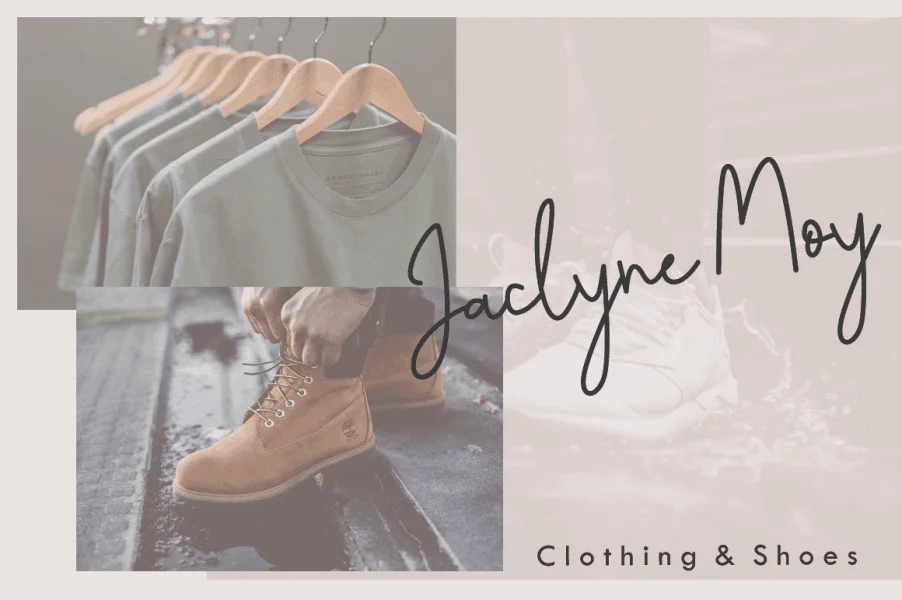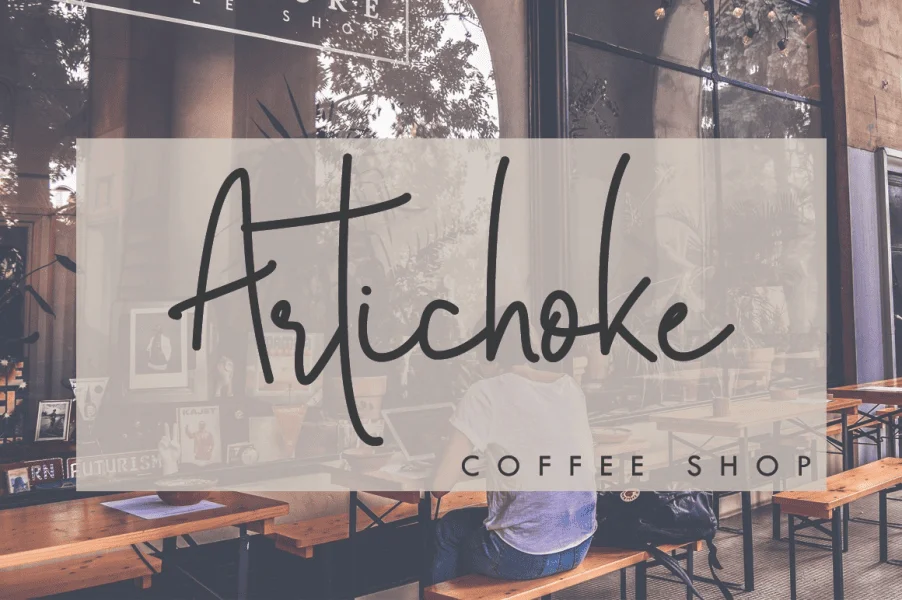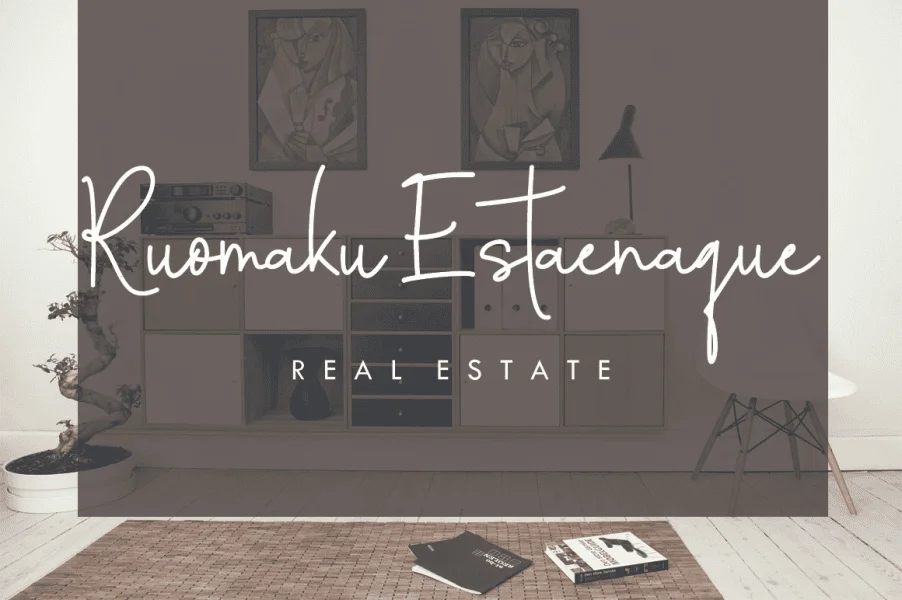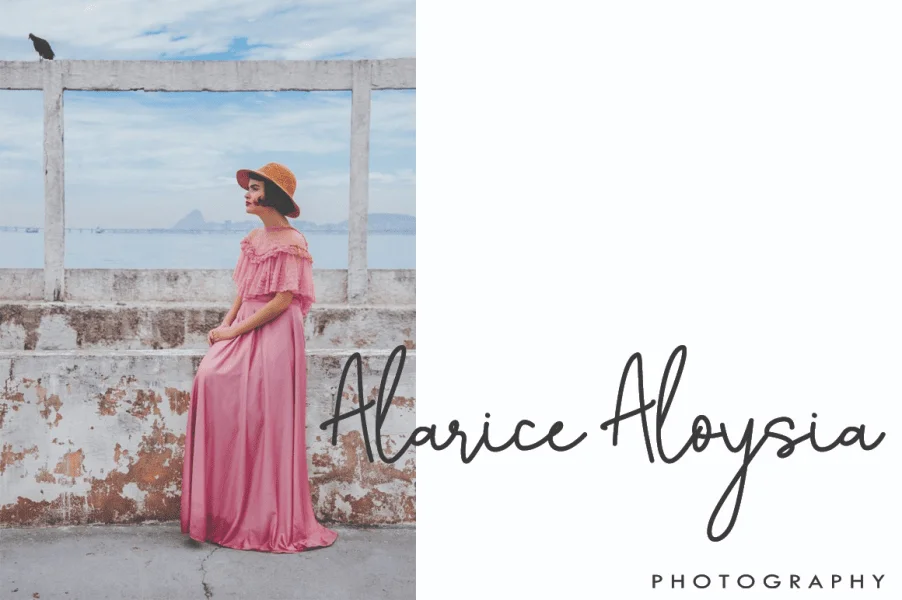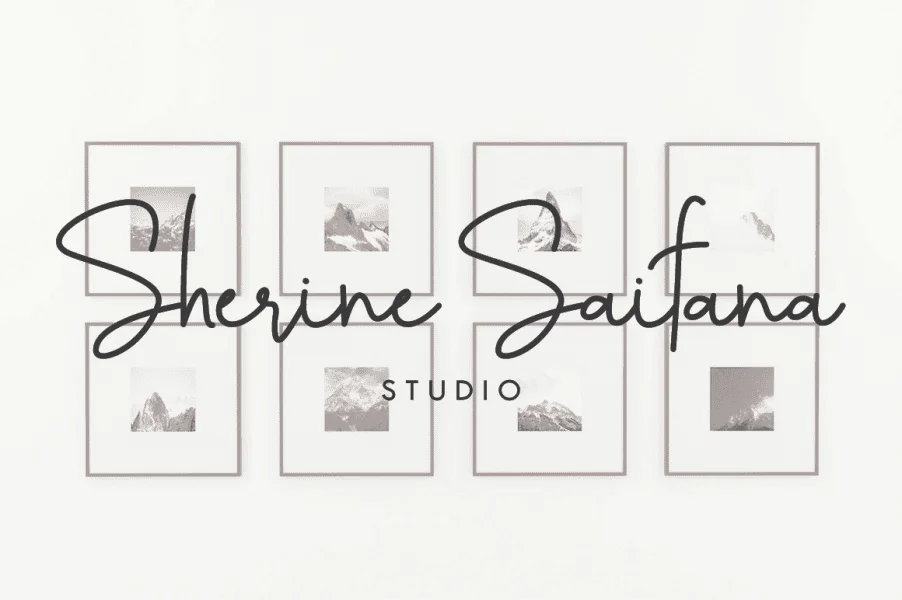
Silversun is an elegant handwritten script font with a modern calligraphy style, perfect for wedding invitations, branding, quotes, logos, and social media designs. Featuring smooth, natural strokes and a warm, romantic feel, Silversun adds a stylish and personal touch to any creative project.